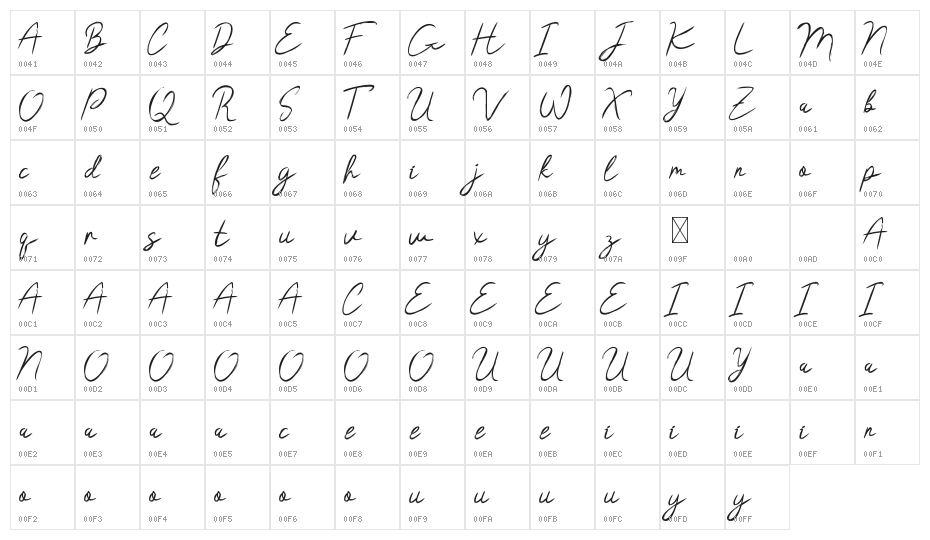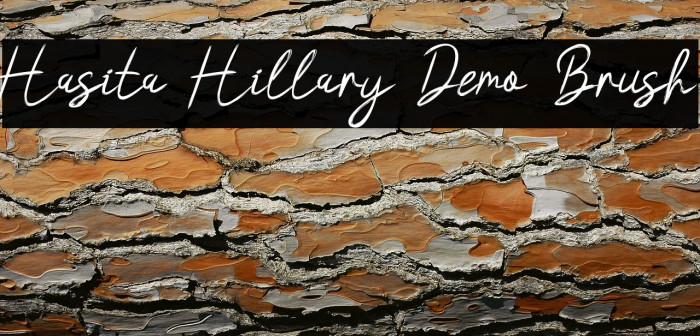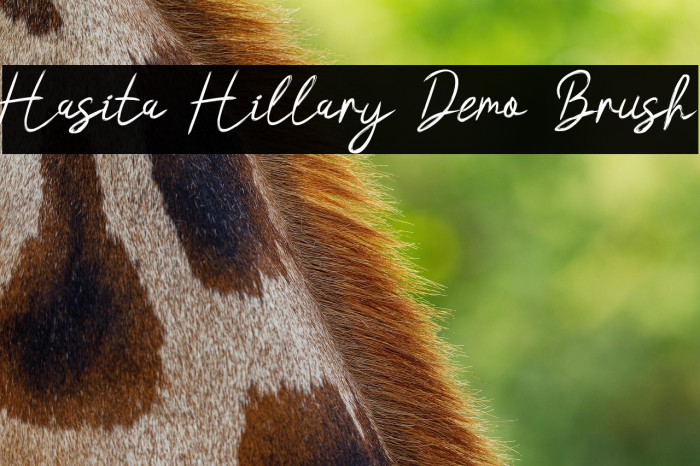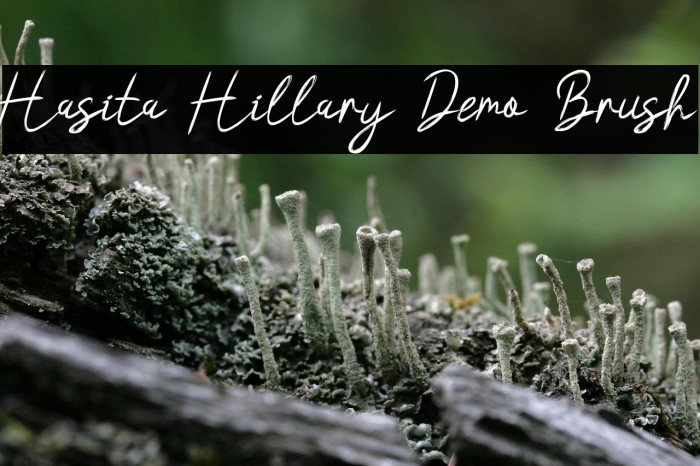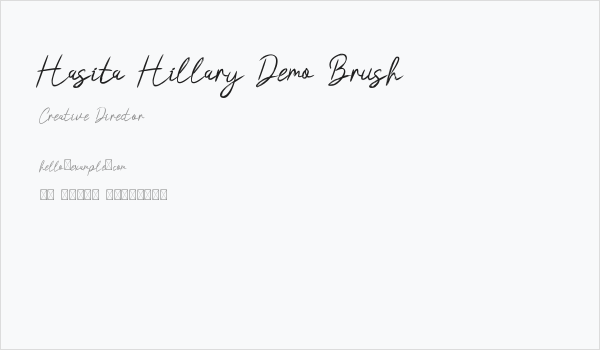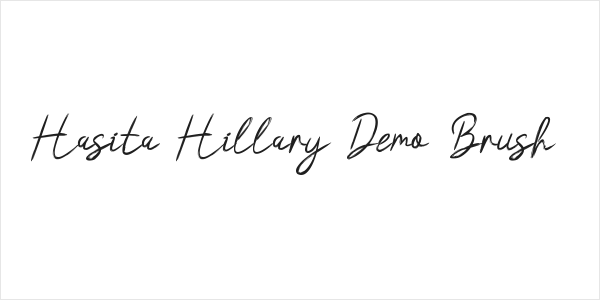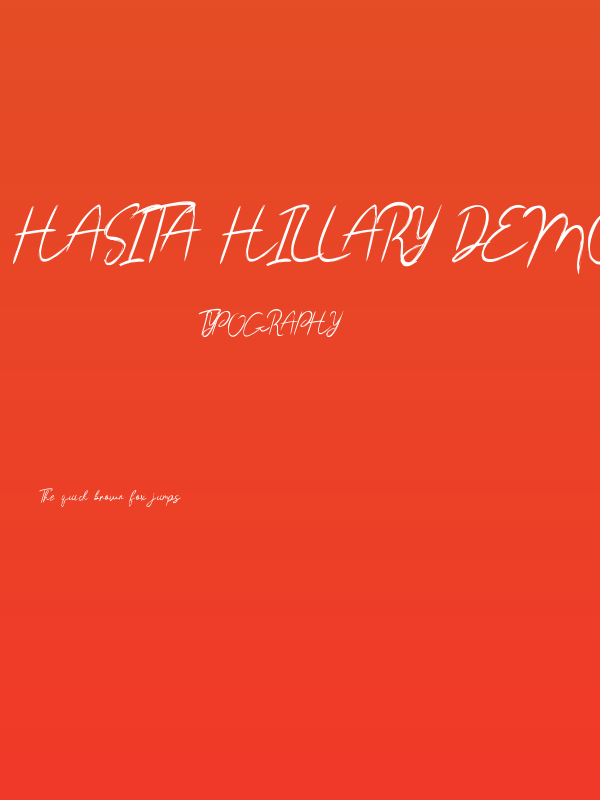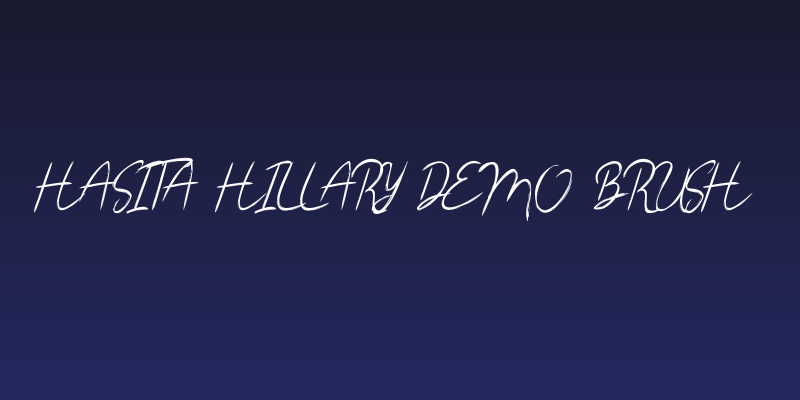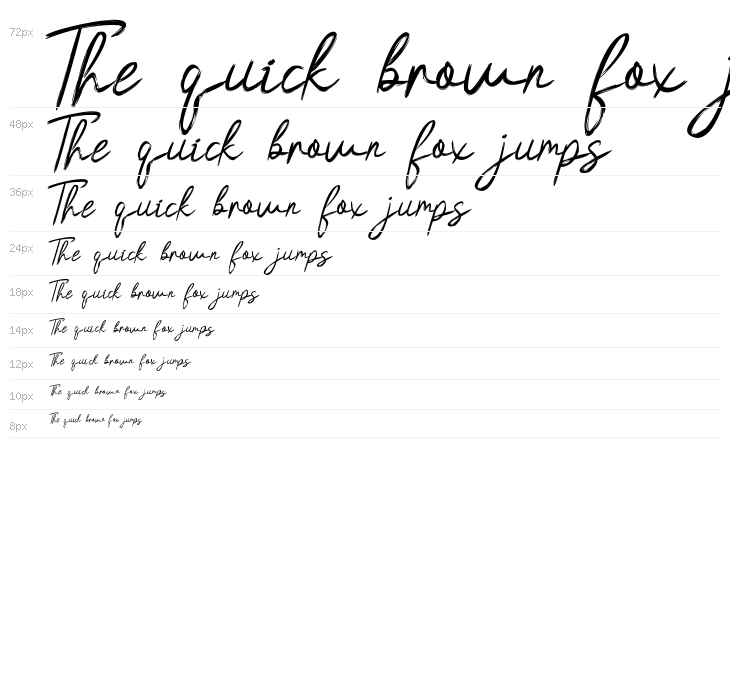
Hasita Hillary Demo Brush Font
Hasita Hillary Demo Brush Description
This font exudes a dynamic and energetic feel, characterized by its brush script style. The letters are crafted with a fluid, hand-drawn appearance, giving it a personal and artistic touch. The strokes vary in thickness, creating a natural and spontaneous look that mimics real handwriting. The uppercase letters are bold and expressive, while the lowercase letters maintain a consistent flow, enhancing readability. The font's unique style is suitable for projects that require a personal and creative flair, such as invitations, greeting cards, or artistic branding. Its distinctive character makes it stand out, adding a touch of elegance and individuality to any design.
Use CaseLogos, Headlines, Artistic projects
Proposed ProjectsIdeal for invitations, greeting cards, artistic branding, and creative projects.